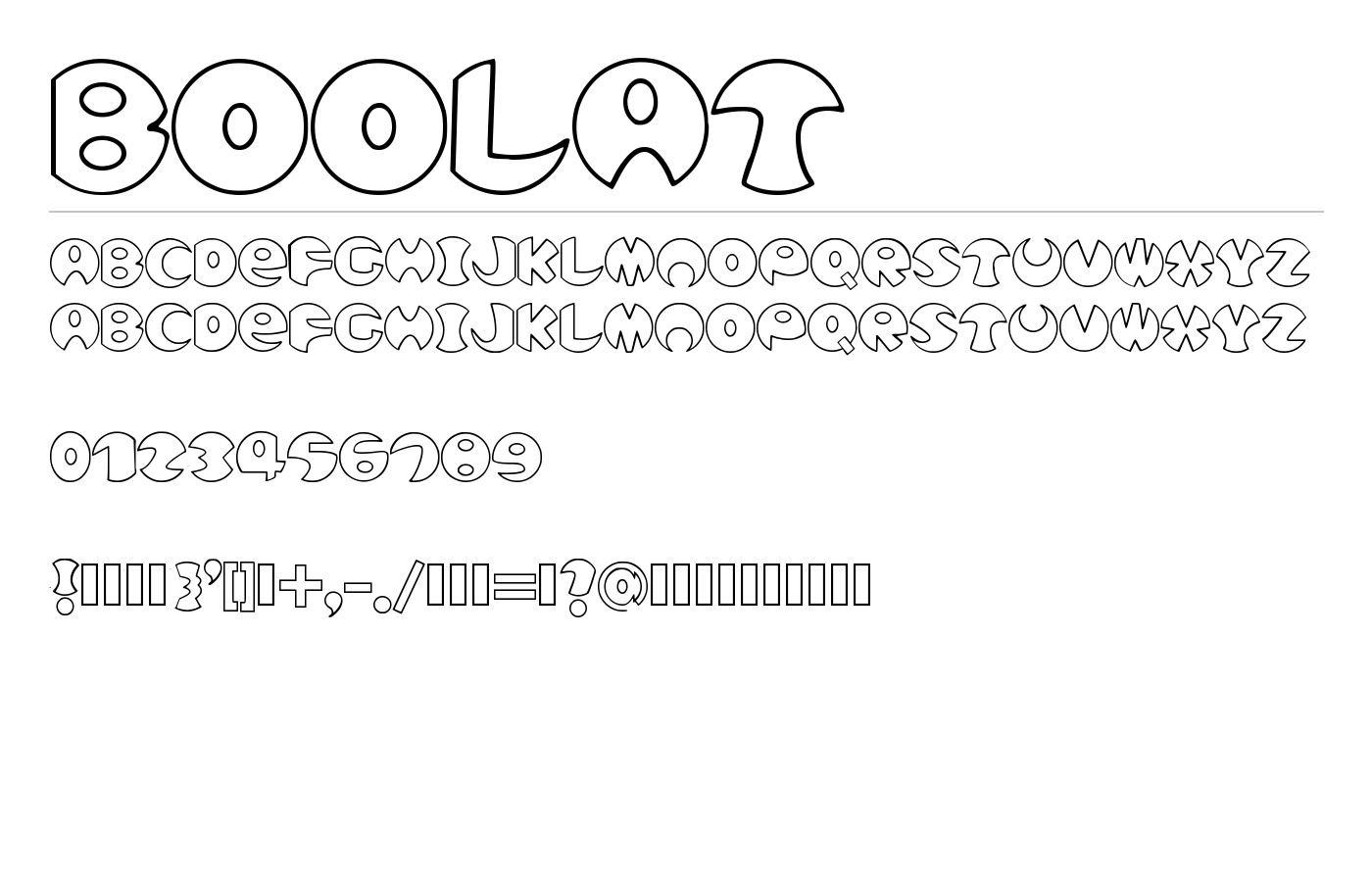
Boolat is a playful, bold display font with rounded, chunky letterforms that create a fun and approachable vibe. Its outlined style and unique shapes give it a whimsical, cartoon-like personality, making it perfect for eye-catching logos, children’s designs, or creative posters that want to convey energy and friendliness.
Boolat Font